Free Retro Fonts for a Vintage Design Aesthetic
Add a nostalgic touch to your design projects with this handpicked collection of free retro fonts. Whether you’re creating logos, badges, labels, apparel, posters, packaging, or vintage-inspired typography, these retro fonts bring timeless charm and bold personality to every design.
Why Choose Retro Fonts for Your Designs
Retro fonts for designers are ideal when you want to evoke a sense of nostalgia or highlight a vintage aesthetic. These free retro-style fonts allow you to infuse your projects with character, warmth, and authenticity, making your branding and graphics stand out in a competitive market.
Perfect Applications for Free Retro Fonts
Our curated retro font collection is suitable for a wide range of creative projects, including:
Vintage logos and badges
Apparel and merchandise design
Posters, flyers, and social media graphics
Labels and packaging with a retro vibe
Typography-focused branding projects
1. Scotland Display Free Font
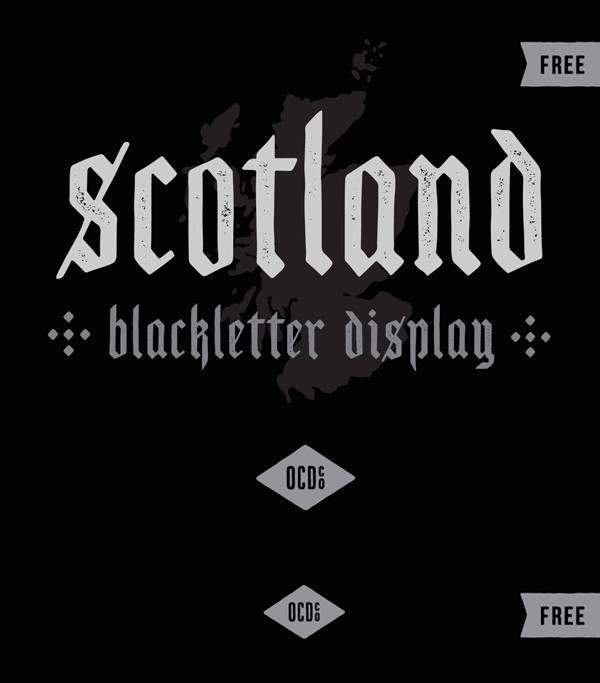
2. Noble Company
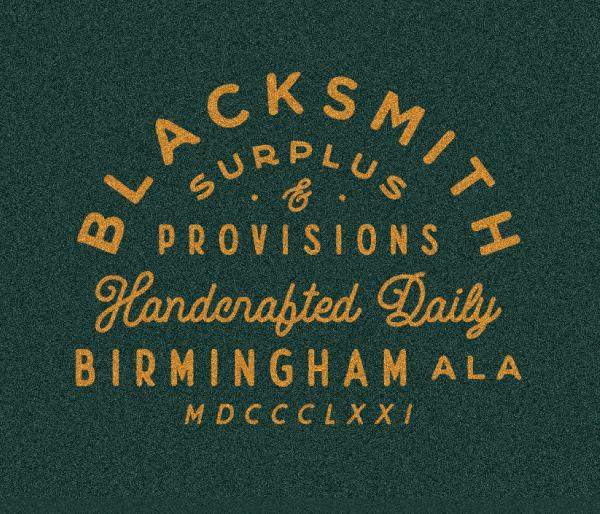
3. Hello Vintage free font
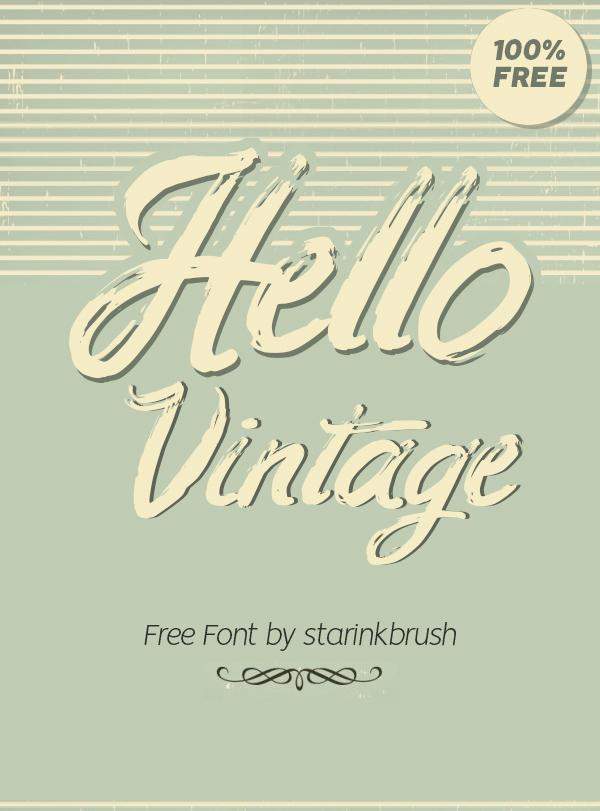
4. Marisole Vintage Textured Free Font
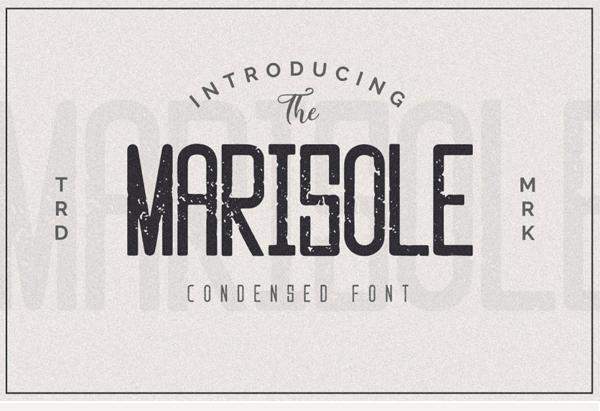
5. Shadow Stripes Vintage font
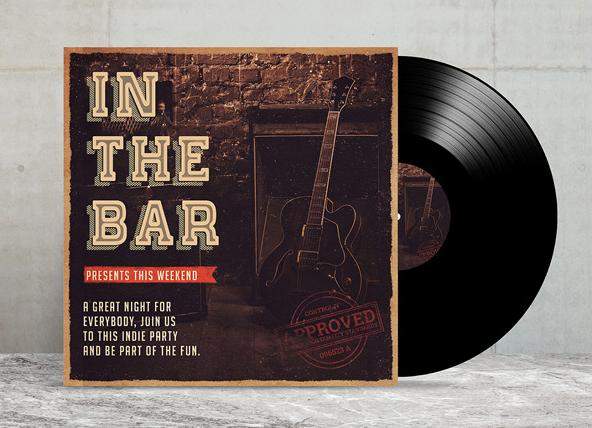
6. Rowan & Royal free font
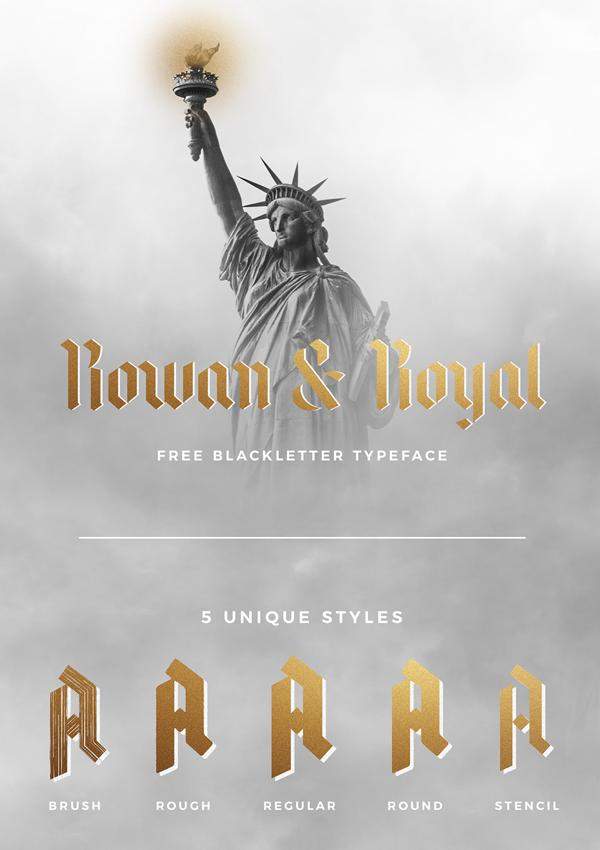
7. Buckwheat SVG font
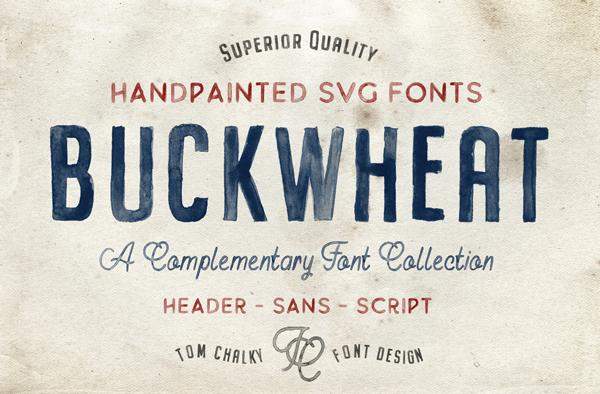
8. Secret Handwritten Script
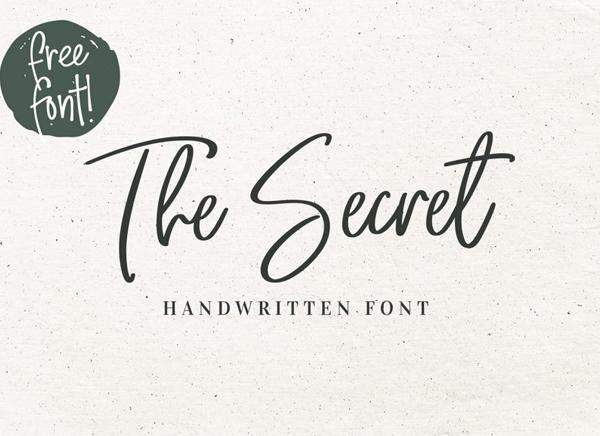
9. Vaderlands Vintage font
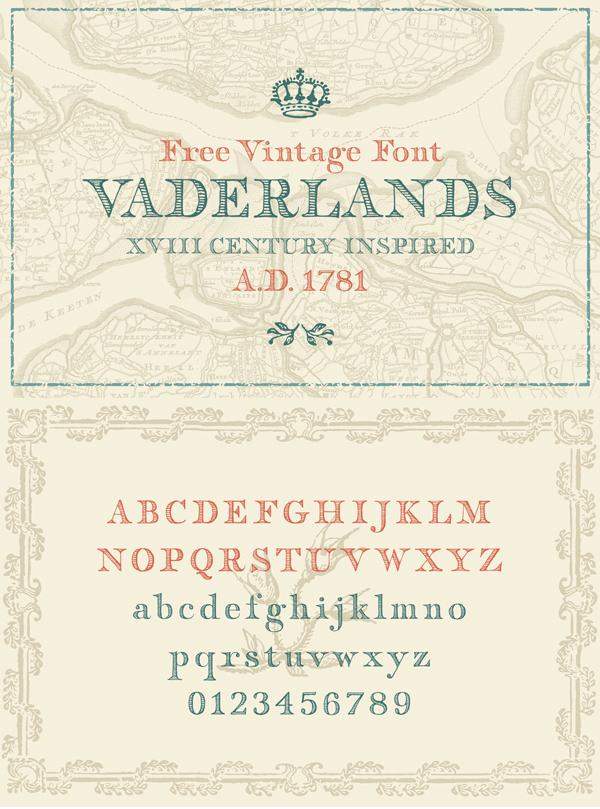
10. Sinistral Brush Vintage – free font
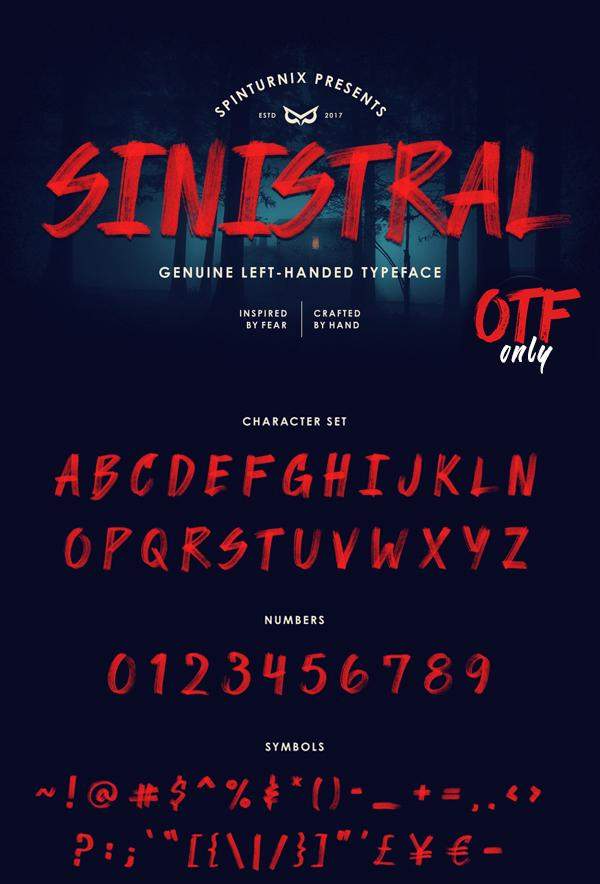
11. Font Hey August Vintage
12. Crafter Vintage